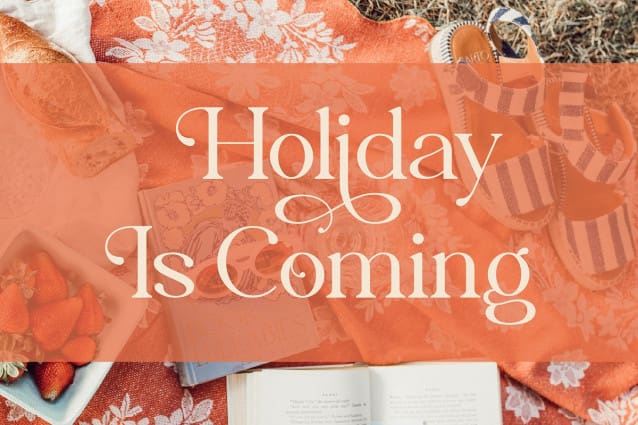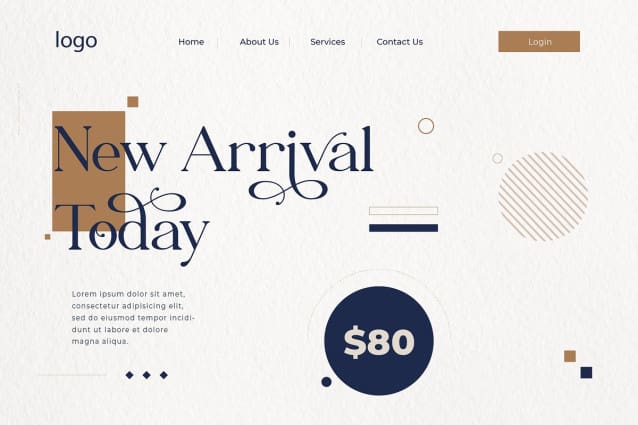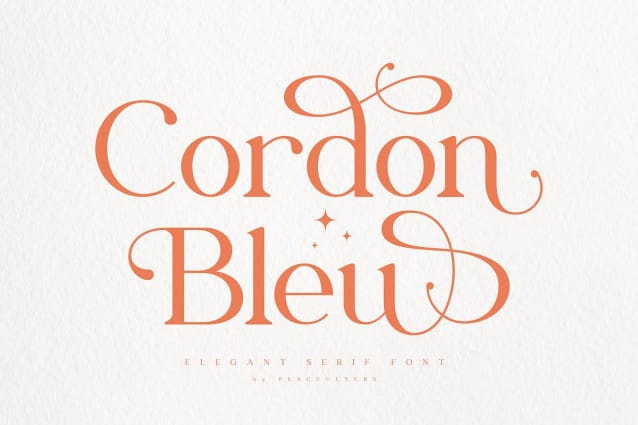
Cordon Bleu Font
Cordon bleu Font is a modern and elegant serif font that comes with more than 50 alternate. With alternates that have an elegant shape, this font will be very suitable for various needs such as branding, logo design, magazines, posters, Instagram feeds and of course there are many more that you can explore with this font.